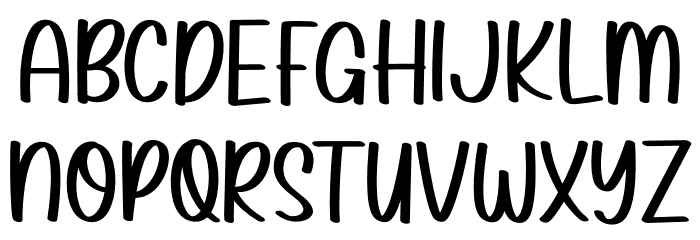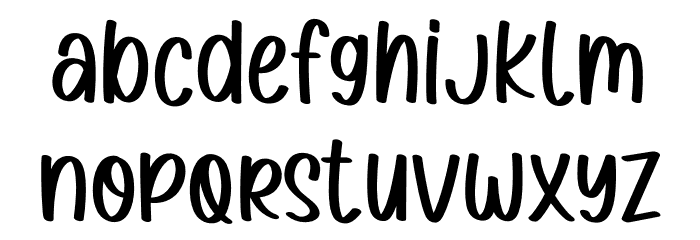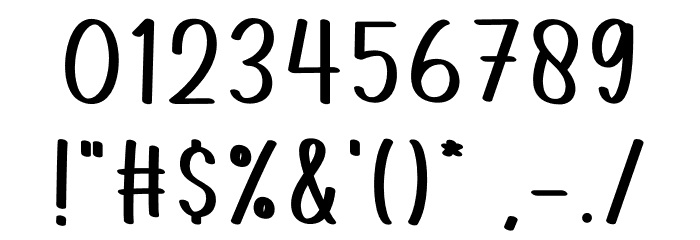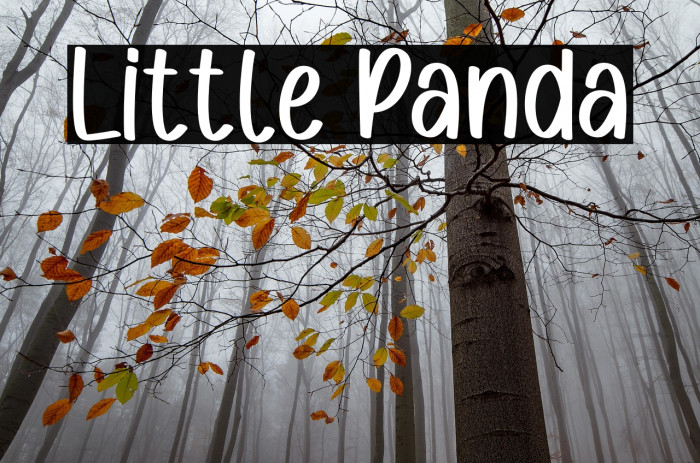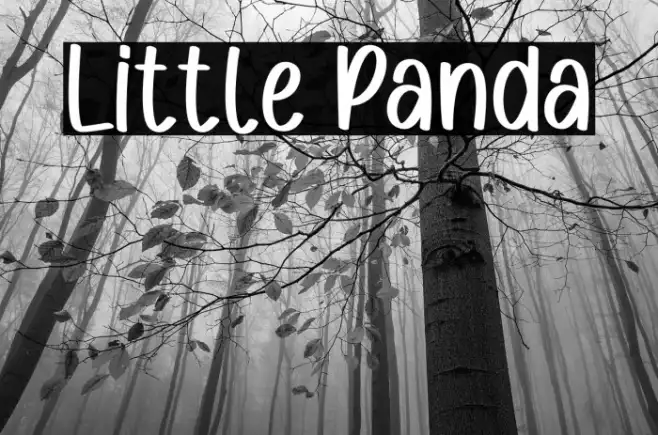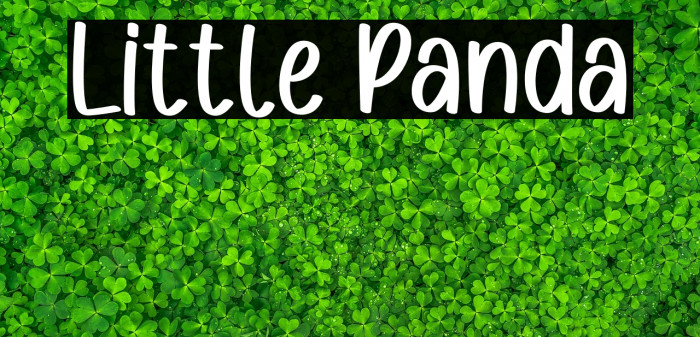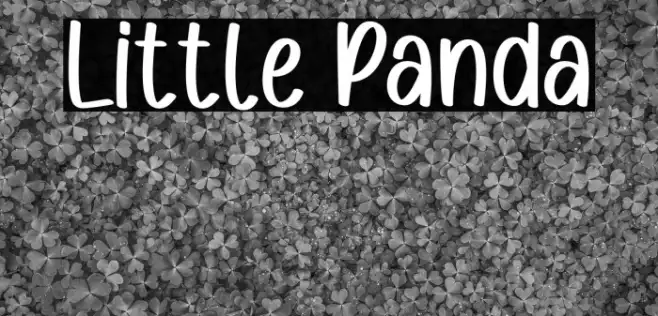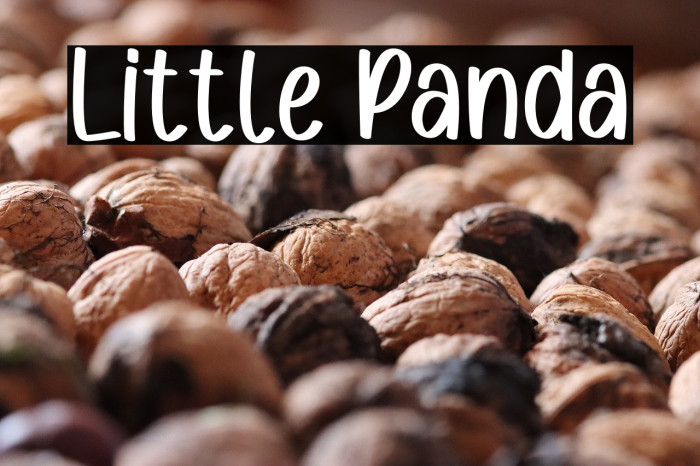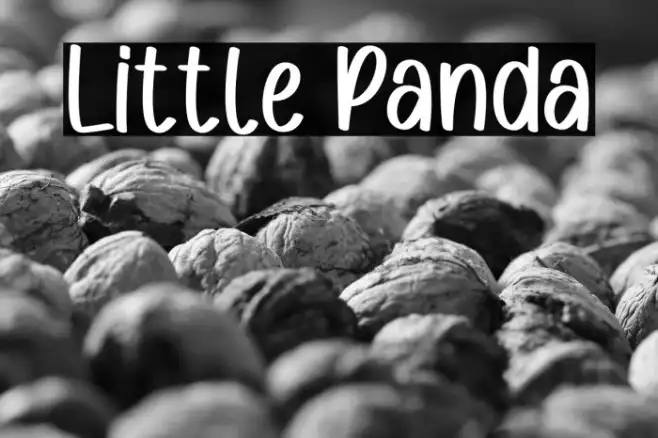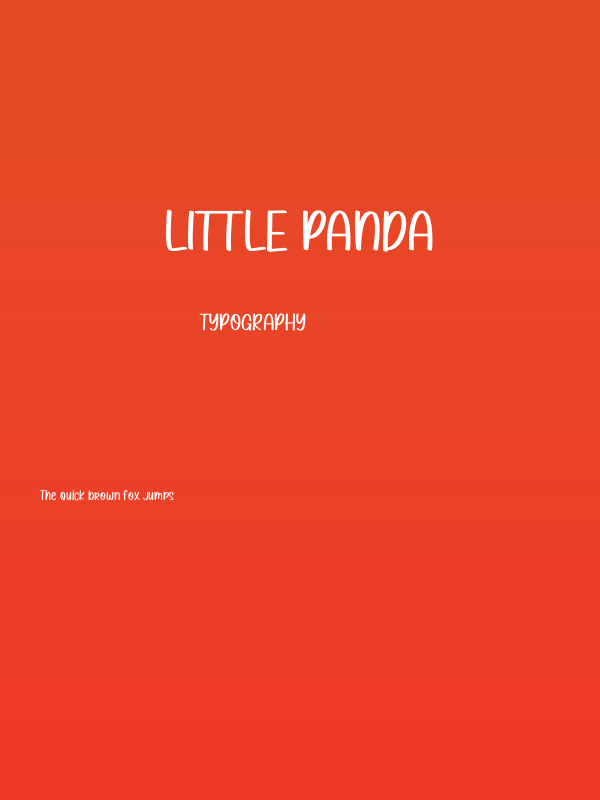
Little Panda Font
This playful and whimsical font features a handwritten style with rounded, smooth edges that convey a sense of friendliness and approachability. The letters are slightly irregular, adding a touch of charm and personality. The uppercase and lowercase characters maintain a consistent flow, with a moderate height difference that enhances readability. Numbers and special characters are crafted with the same playful spirit, ensuring a cohesive look across all text elements. The overall design is casual yet stylish, making it suitable for a variety of creative projects.
A playful, handwritten font with rounded edges and a whimsical style.
- Proposed Projects: Ideal for children's books, greeting cards, playful branding, and social media graphics.
- Overall Style: Playful
- Use Case: Headlines, Logos, Informal Text